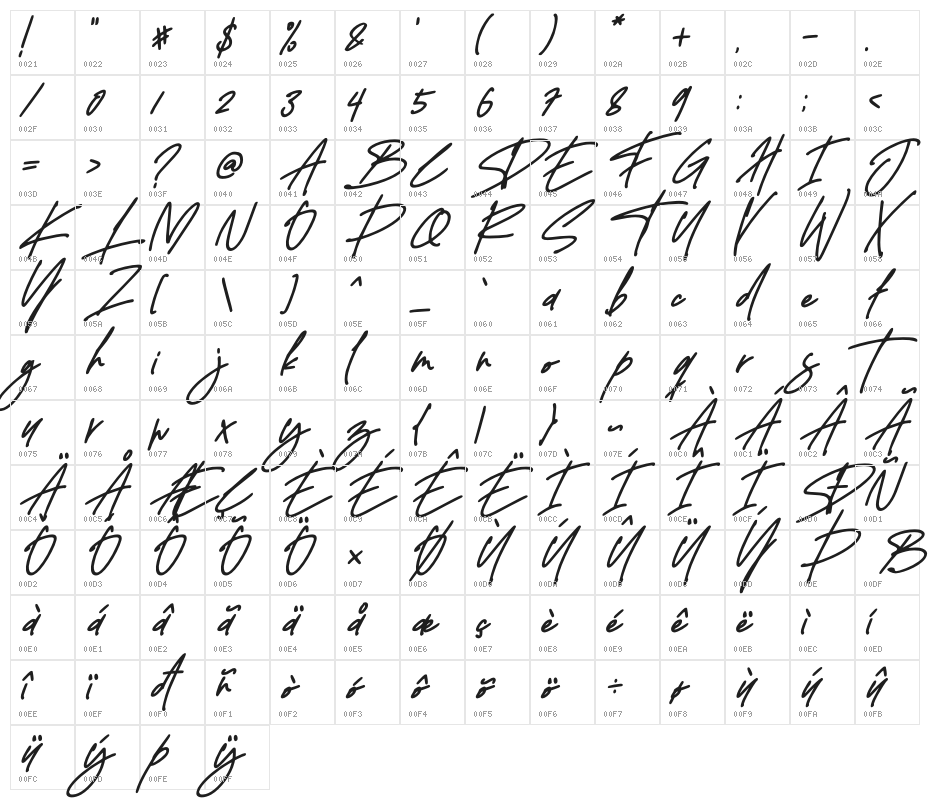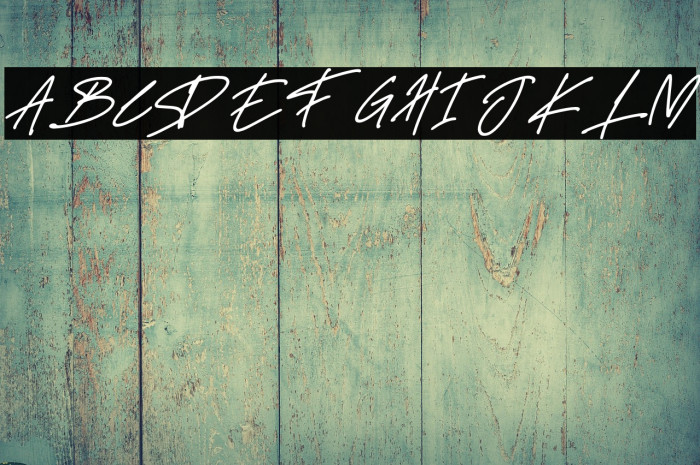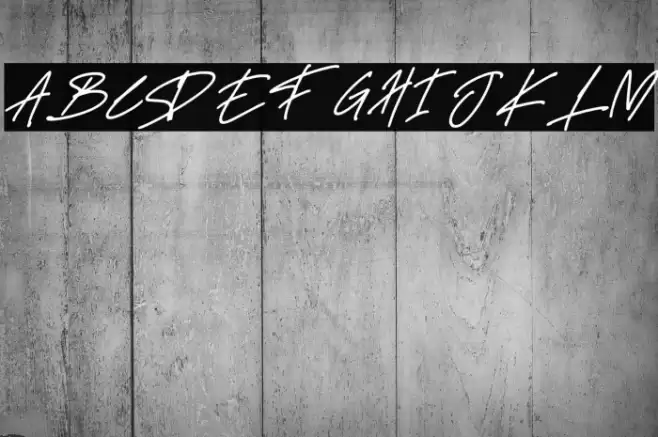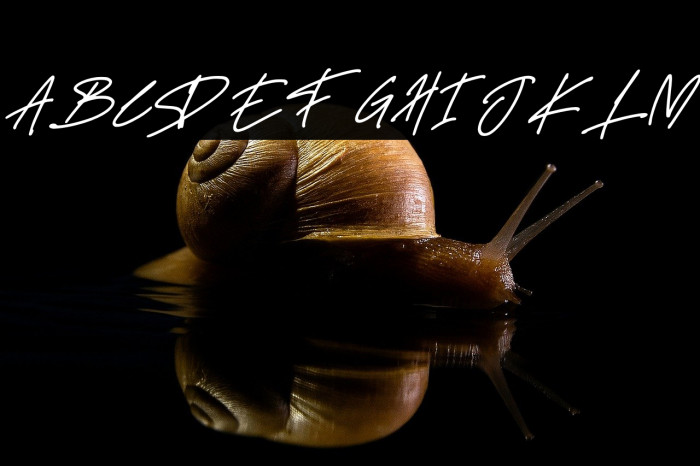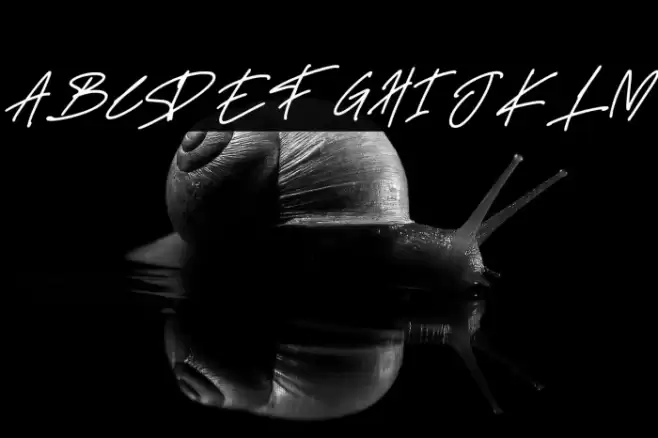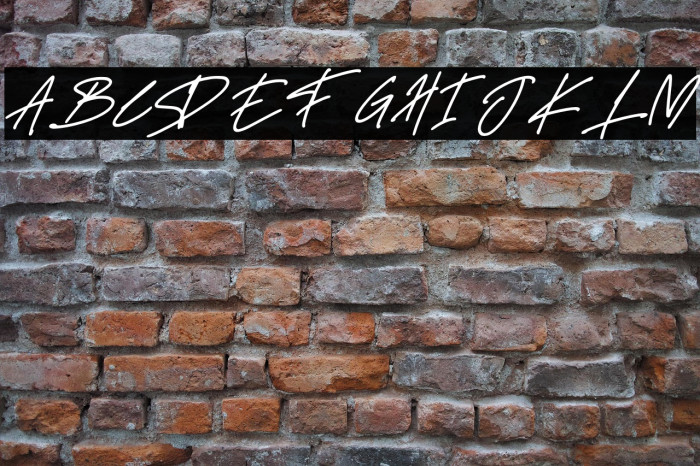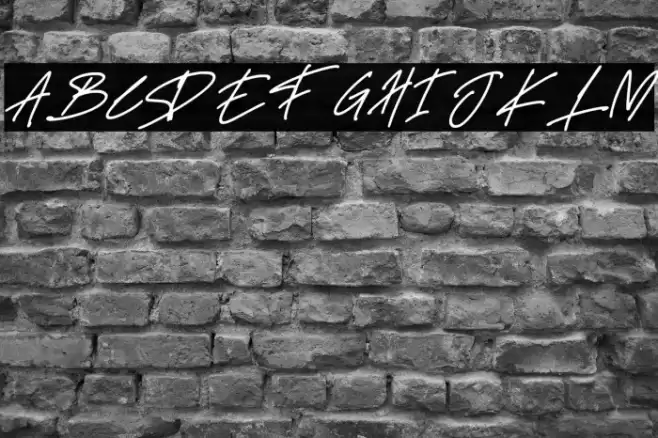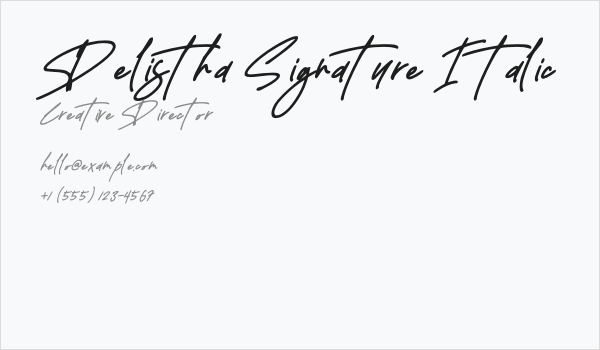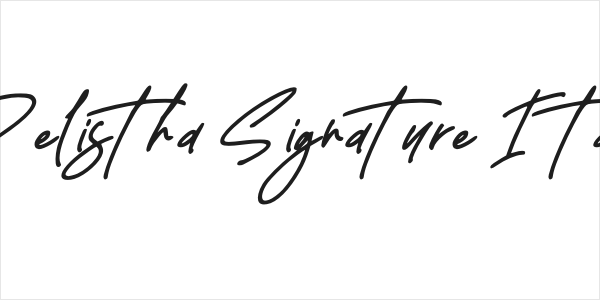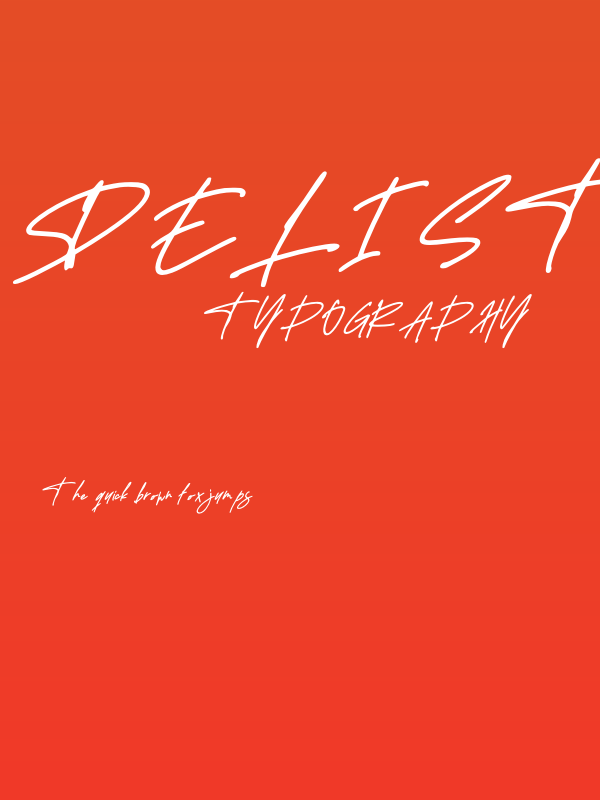
Delistha Signature Italic Font
Delistha Signature Italic Description
This font exudes elegance and sophistication with its flowing, cursive style. The letters are connected in a fluid manner, reminiscent of a personal signature. The uppercase letters maintain a consistent height, while the lowercase letters have a slight slant, adding to the dynamic appearance. The numerals and special characters are designed to match the overall aesthetic, ensuring a cohesive look. The strokes are smooth and slightly varied in thickness, giving the font a natural, handwritten feel. This font is ideal for projects that require a touch of class and personalization.